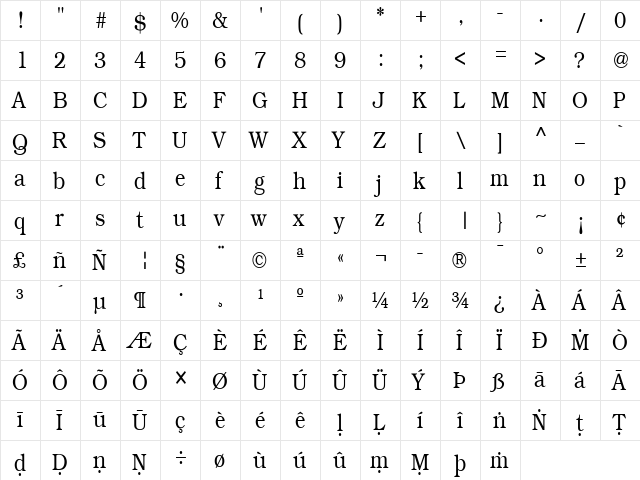
Pali Bookman Cond Regular Font Preview
Pali Bookman Cond Regular
Pali Bookman Cond Regular Font Details
| Foundry | by URW |
Design Context for Pali Bookman Cond Typeface
Pali Bookman Cond offers clean, dependable letterforms without strong stylistic allegiance, making it a practical choice for designers who need flexibility. The condensed width makes it efficient for tight spaces without sacrificing legibility.